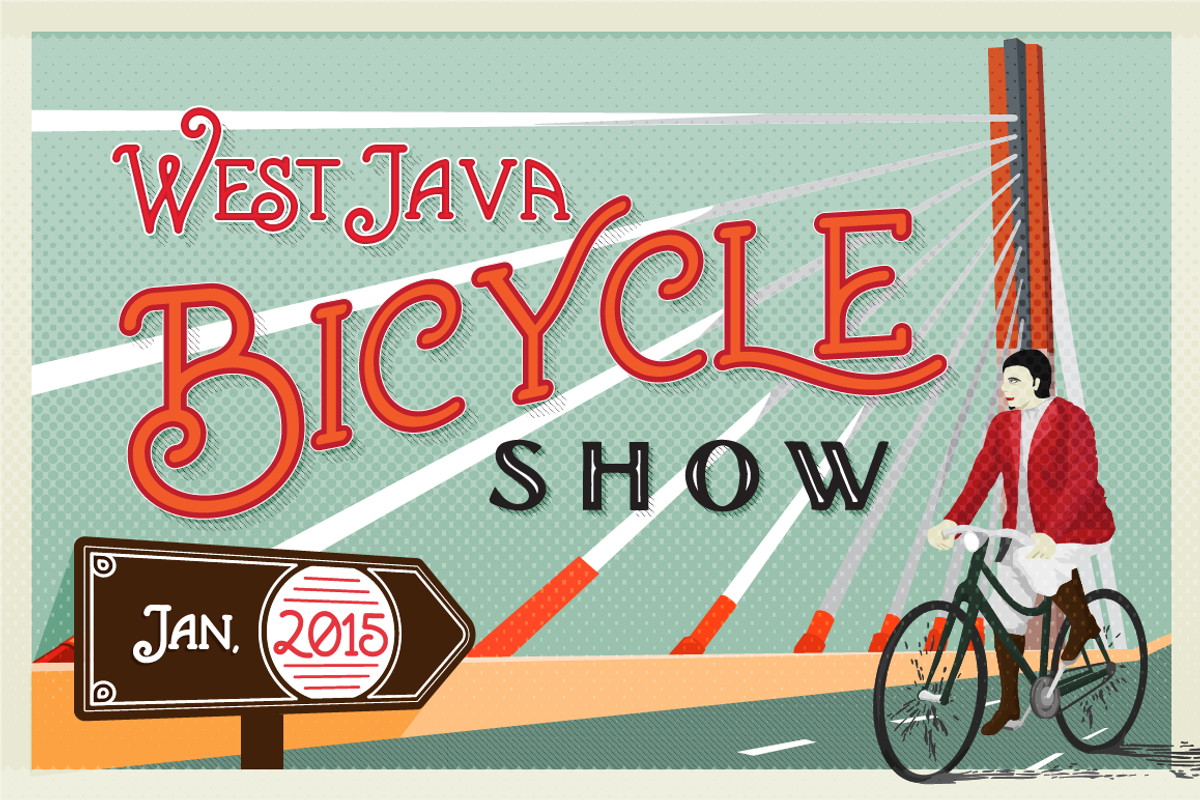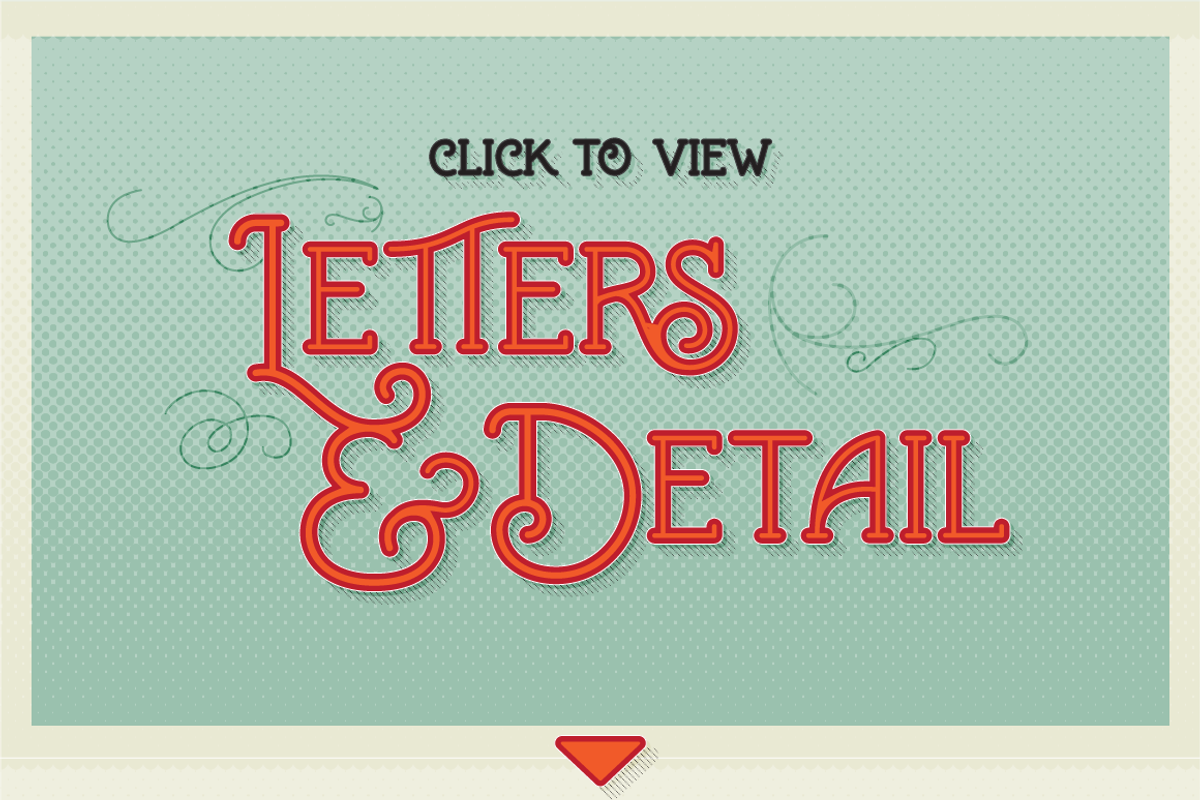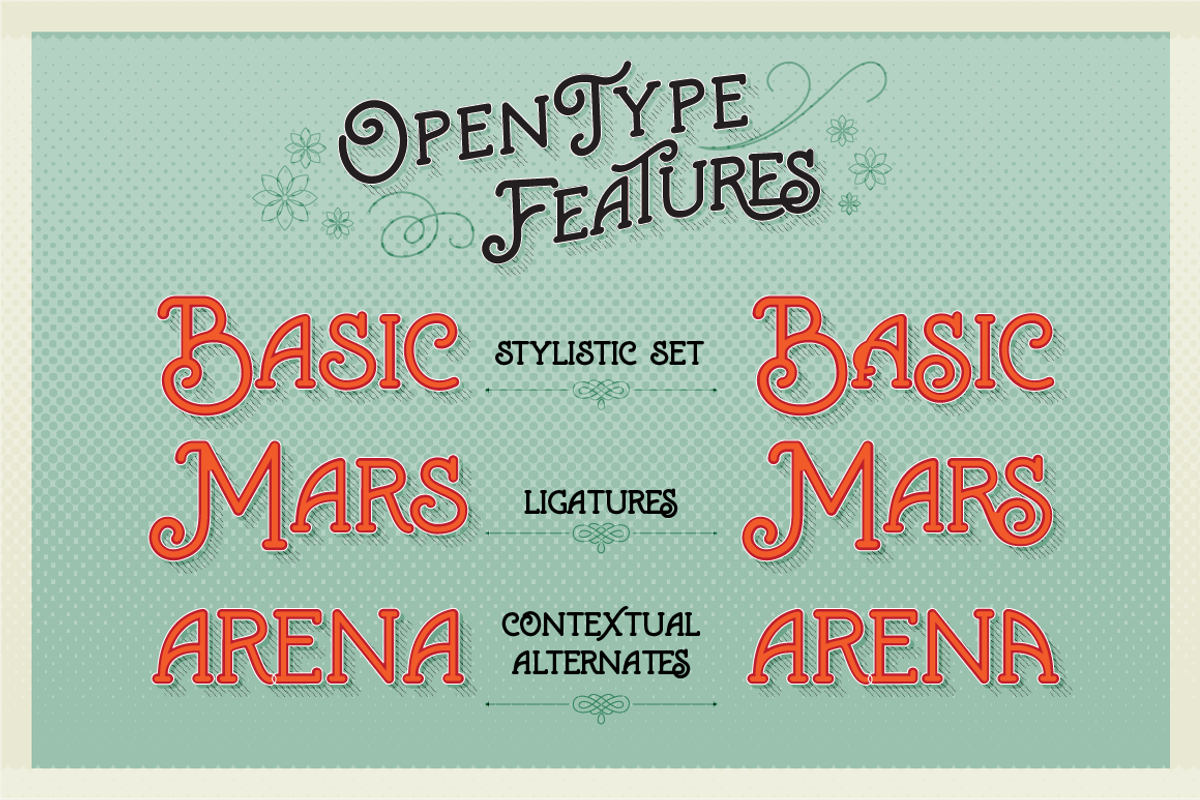
Marema Typeface
Marema Typeface by Adam Fathony is a font selected for branding, posters, packaging, typography.
- Marema Typefaces is Opentype features like, Stylistic Alternates, Contexual Alternates and Ligatures.
- For example, Stylistic Alternates : You can choose different letter r in glyph mode.
- Contextual Alternates : Flipped a, when you type the first letter is 'a' the has curved in left, and if the letter 'a' in last, the curve au
- Ligatures : the unique ways to redrawing two letters into one.
Why Marema Typeface is worth a look
Marema Typeface by Adam Fathony fits naturally into Branding, posters, packaging, typography.